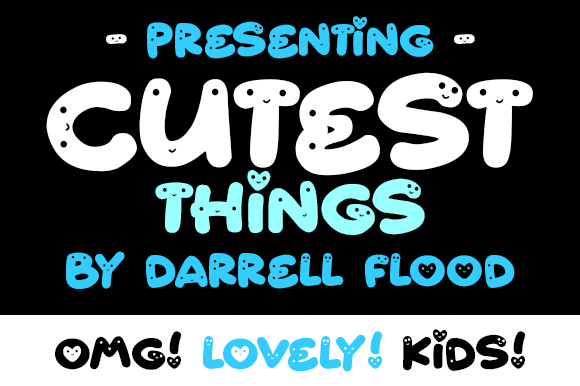
Discover the Cutest Things Font: A Playful and Expressive Typeface for Kids and Family Themes
Are you a designer or crafter looking for a fun and engaging font to add a touch of personality to your projects? Look no further than the Cutest Things font! This delightful typeface is designed to bring a smile to your face, with each character featuring a little face that’s sure to charm kids and adults alike.
What Makes the Cutest Things Font So Special?
The Cutest Things font is a one-of-a-kind typeface that’s perfect for cartoons, comics, and other projects aimed at kids or featuring light family themes. Its playful and inviting style makes it an excellent choice for designers and crafters who want to add a dash of whimsy to their work.
One of the standout features of the Cutest Things font is its adorable character faces. Each letter and number has a unique and endearing expression, making it perfect for projects that require a touch of personality and humor. Whether you’re creating a children’s book, a cartoon, or a family-themed craft project, this font is sure to delight.
Perfect for Kids and Family Themes
The Cutest Things font is specifically designed with kids and family themes in mind. Its playful and non-threatening style makes it perfect for projects aimed at a younger audience, such as:
- Children’s books and e-books
- Cartoon and comic book design
- Kids’ party invitations and decorations
- Family-themed crafts and DIY projects
- Educational materials and worksheets
However, the font’s versatility means it can also be used in a variety of other projects, such as:
- Social media graphics and memes
- Blog and website design
Why Designers and Crafters Love the Cutest Things Font
So, why do designers and crafters love the Cutest Things font? Here are just a few reasons:
- Unique and playful style: The Cutest Things font offers a fresh and playful take on traditional typography, making it perfect for designers and crafters who want to stand out from the crowd.
- Ease of use: The font is easy to read and use, making it perfect for a wide range of projects and applications.
- Customization options: The font can be customized to fit your specific needs, allowing you to adjust the size, color, and style to suit your project.
- Fun and engaging: The Cutest Things font is sure to bring a smile to your face and add a touch of personality to your projects.
Tips for Using the Cutest Things Font
Here are a few tips for getting the most out of the Cutest Things font:
- Use it sparingly: While the Cutest Things font is playful and fun, it can be overwhelming if used excessively. Use it sparingly to add a touch of personality to your project.
- Pair it with complementary fonts: Pair the Cutest Things font with complementary fonts to create visual interest and add depth to your project.
- Experiment with colors and textures: Don’t be afraid to experiment with different colors and textures to add an extra layer of personality to your project.
The Cutest Things font is a fun, expressive, and playful typeface that’s perfect for designers and crafters looking to add a touch of personality to their projects. With its adorable character faces and inviting style, it’s sure to delight kids and adults alike. Whether you’re creating a children’s book, a cartoon, or a family-themed craft project, the Cutest Things font is an excellent choice. So why not give it a try and see how it can bring a smile to your face and a touch of whimsy to your work?